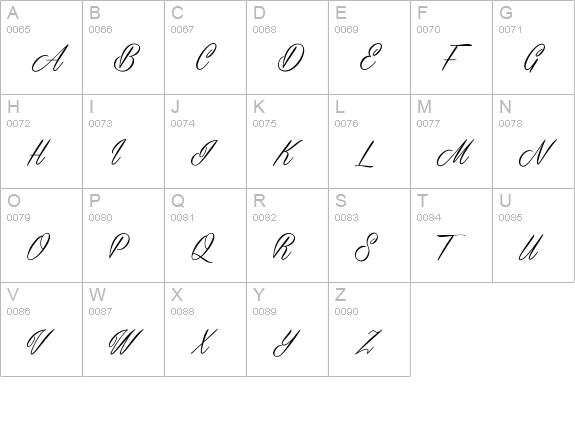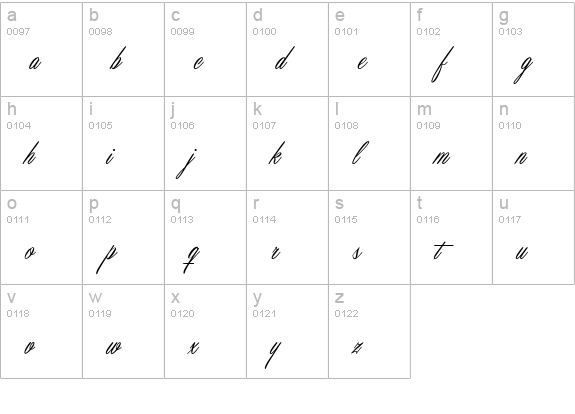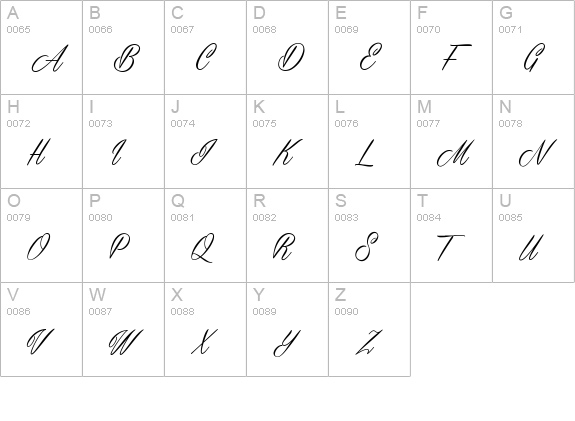
Introducing Masterics Personal Use font, a visually stunning typeface that embodies elegance, versatility, and creativity. This remarkable font is perfect for those seeking to add a touch of sophistication to their personal projects. Whether you're designing invitations, creating stunning logos, or crafting eye-catching social media graphics, Masterics Personal Use font will undoubtedly elevate your designs to new heights. Featuring a harmonious balance between thin and bold strokes, this font exudes a sense of modernity and elegance. Its clean and legible letterforms make it a versatile choice for a wide range of design needs, ensuring that your message is conveyed with clarity and style. One of the most exciting aspects of Masterics Personal Use font is that it is available free of charge. That's right, you can download this exquisite font at no cost from FontsMarket.com. This means that you can unleash your creativity without any limitations, making it ideal for personal use projects, such as wedding invitations, party flyers, or personal branding. The attention to detail in Masterics Personal Use font is truly exceptional. Every curve and flourish has been meticulously crafted to ensure a seamless and visually pleasing reading experience. Its versatility is further enhanced by a wide range of stylistic alternates and ligatures, allowing you to customize and experiment with different looks and moods. Masterics Personal Use font is a true game-changer when it comes to personal design projects. Its combination of elegance, versatility, and affordability makes it an invaluable asset in your creative toolkit. So why wait? Head over to FontsMarket.com and download Masterics Personal Use font today, and let your imagination run wild. Get ready to create stunning designs that leave a lasting impression.